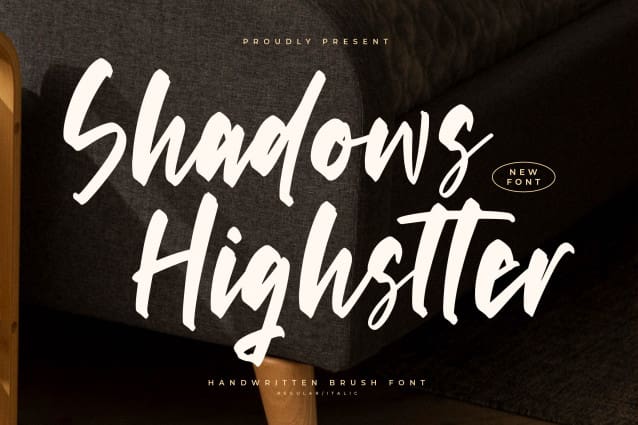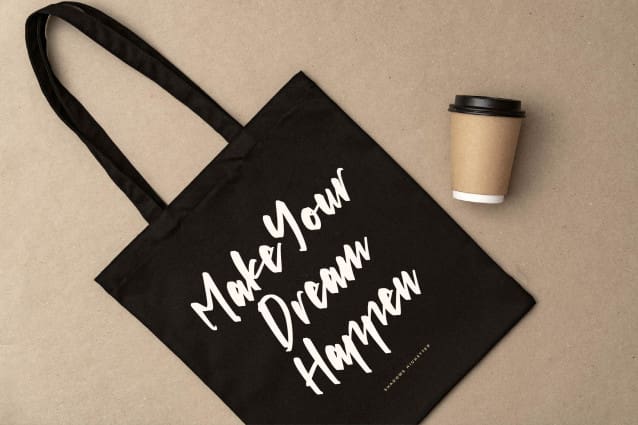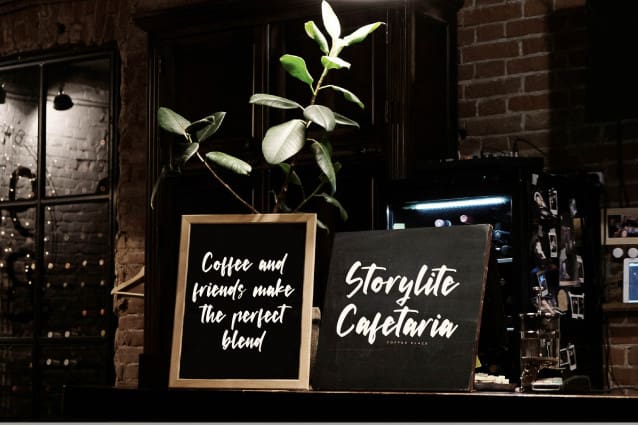
Shadows Highstter Font
Shadows Highstter Font – Handwritten Brush Font , from Letterena, is a Luxury Script font, suitable for any projects such as: logos, branding projects, homeware designs, product packaging, mugs, quotes, posters, shopping bags, t-shirts, book covers, name card, invitation cards, greeting cards, label, photography, watermark, special events, and all your other luxury and beautiful projects that need a Luxury serif taste.